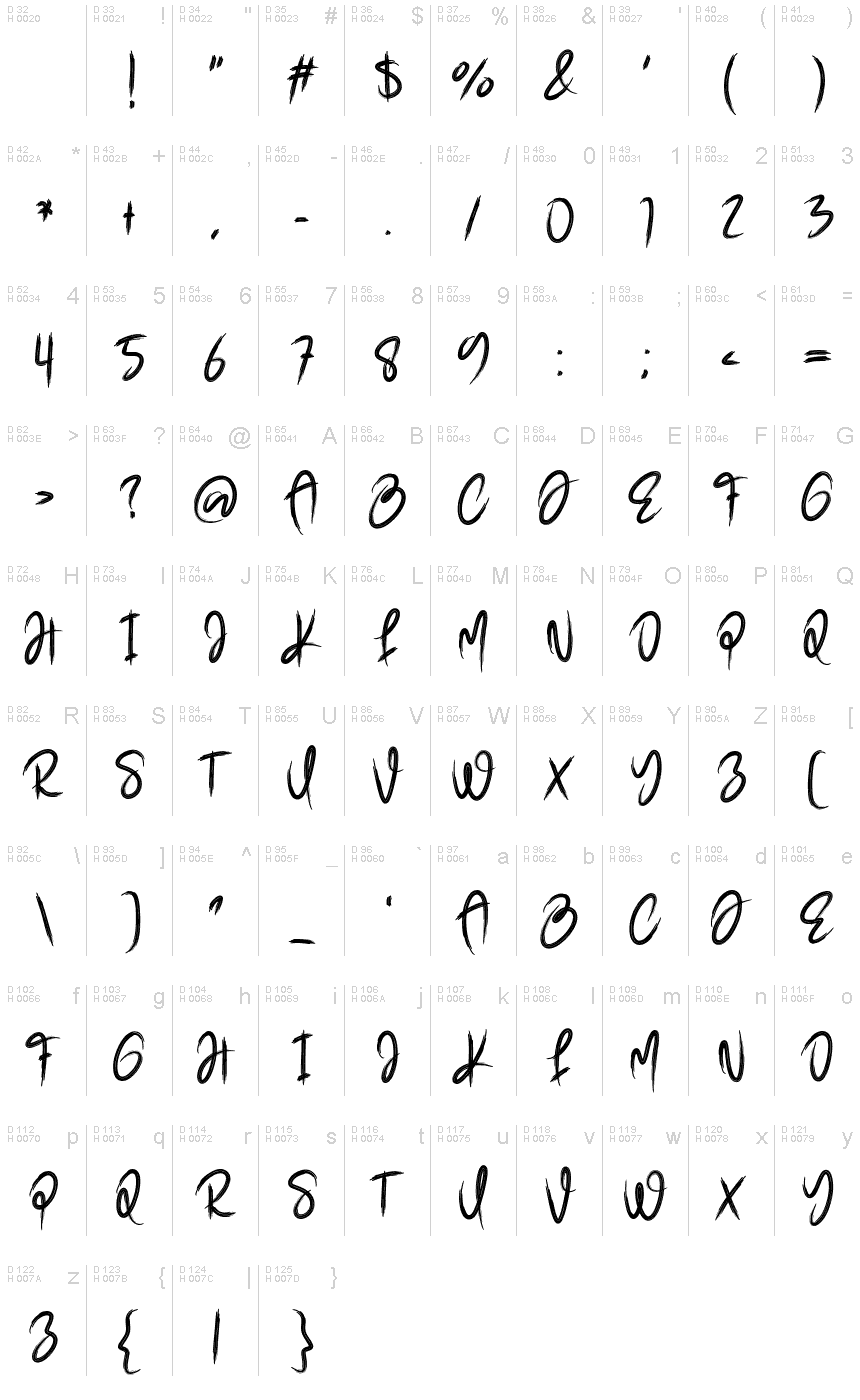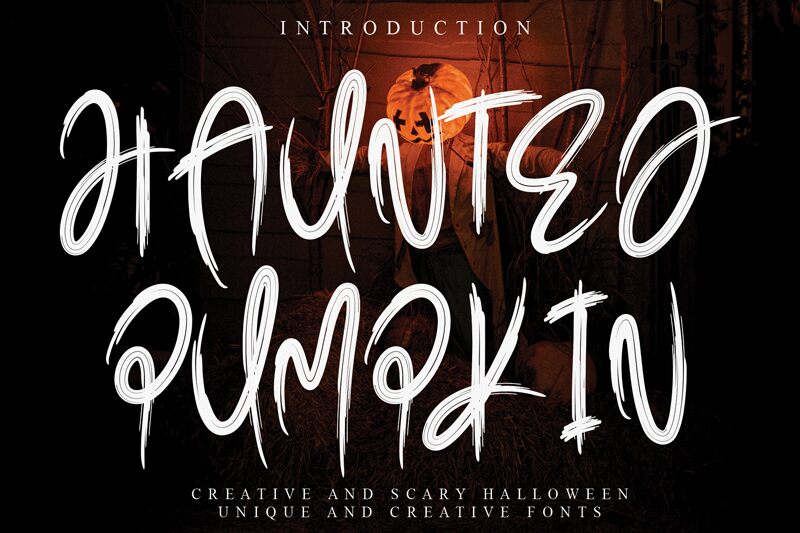
Haunted Pumpkin
Haunted Pumpkin font is an inspiring Halloween typeface designed by lontong lodeh.
the latest style letters are perfect for wall displays, wedding invitations, social media post logos,
advertisements, product packaging, product designs, labels, photography, watermarks, invitations, stationery,
and any project that requires taste handwriting.